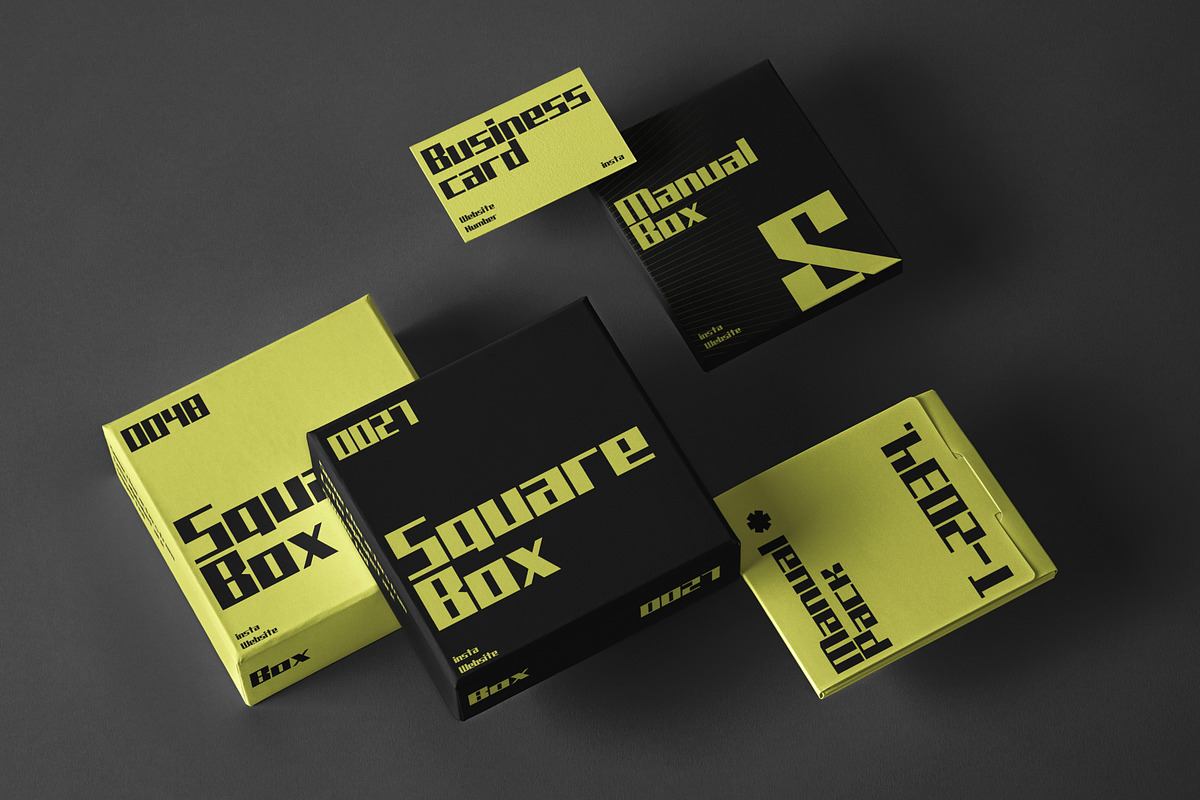
Dech Bold Display Font Street Free Download is a strong, attention-grabbing typeface designed with bold lines and a dynamic street-inspired aesthetic. With its sharp edges and contemporary design, this font is perfect for urban-themed projects, graffiti-style designs, logos, streetwear branding, posters, and any design that needs a bold, high-energy feel.
The Dech Bold display font captures the essence of modern street culture and provides a unique look for any creative or rebellious design. Whether you're designing for a music event, a fashion brand, or a street art project, this font ensures your typography makes a statement.
Make a bold statement with Dech Bold Display Font Street Free Download, and add strong, modern typography with street-style flair to your designs. Perfect for designers looking for a bold, urban font with impact.